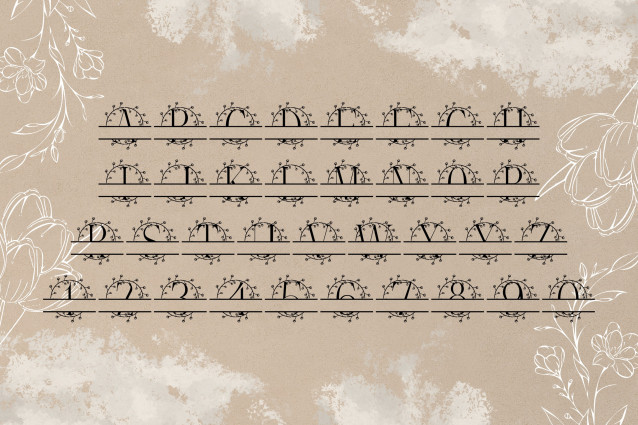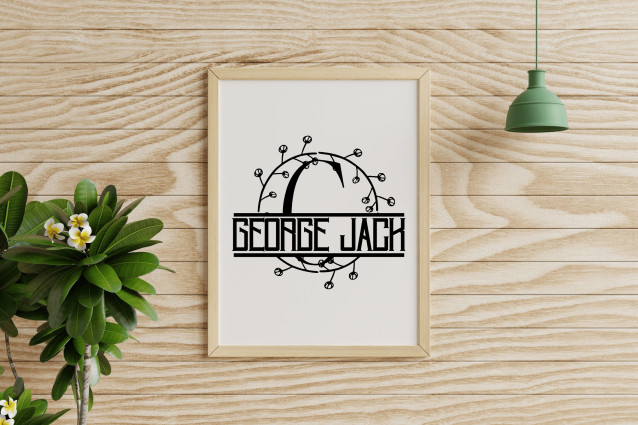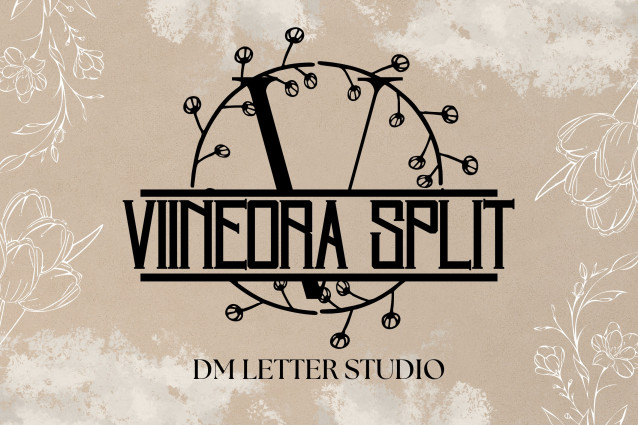
Vineora Split Font
Vineora Split Monogram is a refined serif font featuring a horizontal split in each uppercase letter, designed for easy customization with names or initials. Delicate botanical vine flourishes wrap each character, making it a charming choice for wedding signage, personalized crafts, and elegant Cricut projects.